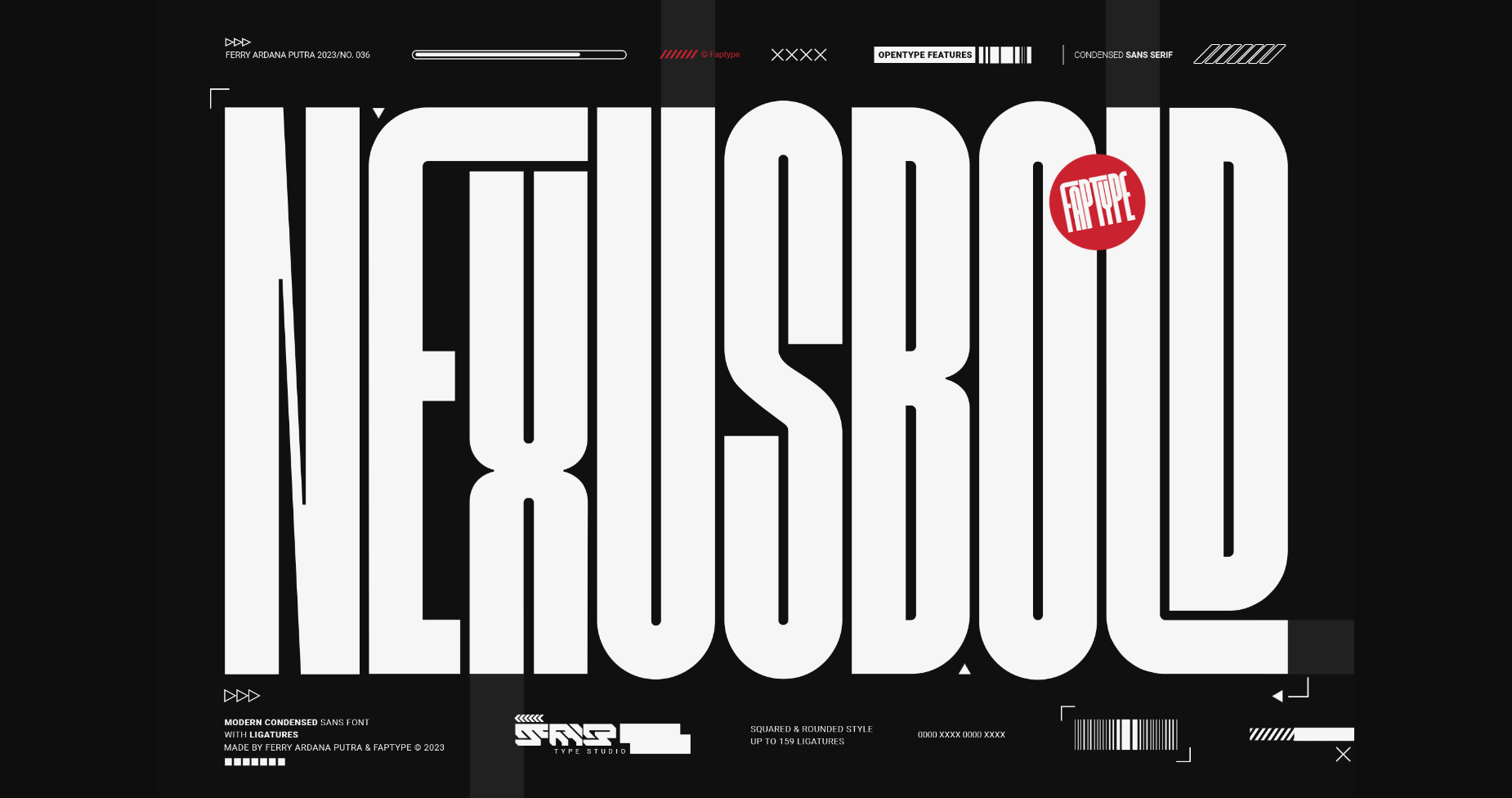
About Nexusbold Font
Introducing Nexusbold, a modern condensed sans font that redefines typographic excellence. With its sleek and contemporary design, Nexusbold is the epitome of elegance and functionality, enhanced by an extensive array of meticulously crafted ligatures.
Nexusbold’s condensed form is carefully crafted to optimize space without compromising legibility. Whether you’re creating headlines, logos, packaging, or web designs, this font’s compact structure ensures a visually striking impact that commands attention.
But what truly sets Nexusbold apart is its vast collection of expertly designed ligatures. With an abundance of ligatures at your disposal, Nexusbold empowers you to create seamless connections between characters, infusing your typography with a sense of fluidity and artistry.
Nexusbold is a versatile font suitable for a myriad of design applications, including editorial layouts, branding materials, advertising campaigns, and digital interfaces.
Nexusbold’s condensed form is carefully crafted to optimize space without compromising legibility. Whether you’re creating headlines, logos, packaging, or web designs, this font’s compact structure ensures a visually striking impact that commands attention.
But what truly sets Nexusbold apart is its vast collection of expertly designed ligatures. With an abundance of ligatures at your disposal, Nexusbold empowers you to create seamless connections between characters, infusing your typography with a sense of fluidity and artistry.
Nexusbold is a versatile font suitable for a myriad of design applications, including editorial layouts, branding materials, advertising campaigns, and digital interfaces.